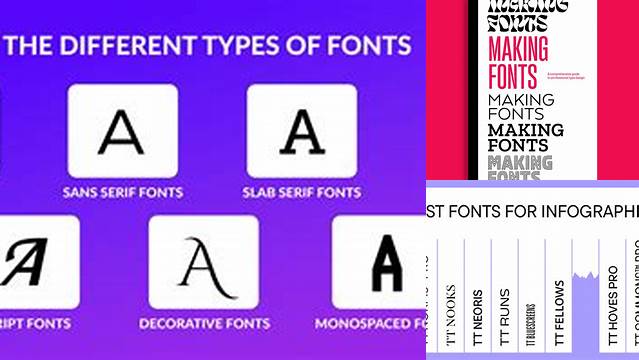
Text Font Types: A Comprehensive Guide
Hey guys! Ever wondered about the amazing world of text fonts? Well, buckle up because we're diving deep into it! From the fonts you see in your favorite books to the ones that pop up on your phone screen, each font has its own personality and purpose. Understanding different types of text fonts is super useful, whether you're designing a website, creating a presentation, or just trying to make your documents look a little more snazzy. So, let's get started and explore the wonderful universe of fonts together!
Serif fonts are like the classic and trustworthy members of the font family. You know them by those little decorative strokes, called serifs, that stick out from the ends of the letters. Think of fonts like Times New Roman, Garamond, and Georgia – they all have those cute little serifs. Serif fonts are often used in print because they're super easy to read in long blocks of text. That's why you'll find them in books, newspapers, and magazines. The serifs help guide your eye across the page, making reading a breeze. But serif fonts aren't just about readability; they also bring a sense of tradition and formality. Using a serif font can give your design a touch of elegance and sophistication, making it perfect for professional documents or classic-themed projects. So, next time you're choosing a font for a serious project, consider a serif font to add a touch of class and readability. Remember, these fonts are your go-to for creating a polished and professional impression.
Now, let's talk about sans-serif fonts. Unlike their serif cousins, sans-serif fonts don't have those little decorative strokes. "Sans" actually means "without" in French, so these fonts are all about clean and simple lines. Popular sans-serif fonts include Arial, Helvetica, and Open Sans. These fonts are often favored for digital displays because they look great on screens. Their clean design makes them easy to read, even at smaller sizes, which is super important for websites and apps. Sans-serif fonts are also known for their modern and minimalist vibe. They can make your design look fresh, contemporary, and approachable. If you're working on a website, a mobile app, or any project that needs a clean and modern look, sans-serif fonts are the way to go. They offer excellent readability on screens and give your design a sleek, up-to-date feel. Plus, they're incredibly versatile and can be used in a wide range of projects, from business presentations to marketing materials. So, when you want to keep things clean, simple, and modern, sans-serif fonts are your best friends.
Alright, guys, let's jazz things up with script fonts! These fonts are designed to look like handwriting, with flowing and connecting strokes that give them a personal and elegant touch. Script fonts can range from formal and sophisticated to playful and casual, so there's a script font for almost any mood you want to create. Think of fonts like Brush Script, Pacifico, and Lobster – they all have that handwritten flair. Because of their decorative nature, script fonts are often used for invitations, greeting cards, and logos where you want to add a touch of personality and charm. However, it's important to use script fonts sparingly. They can be harder to read in large blocks of text, so it's best to use them for headings, titles, or short phrases where you want to make a statement. When used correctly, script fonts can bring a unique and stylish feel to your design. They're perfect for adding a personal touch and making your project stand out. Just remember to keep readability in mind and use them in moderation. So, if you want to add a bit of elegance, charm, or personality to your project, give script fonts a try!
Let's get creative with decorative fonts! These fonts are all about making a statement and adding a unique visual element to your design. Decorative fonts come in all shapes and sizes, from bold and quirky to vintage and whimsical. They're designed to catch the eye and add personality to your project. Think of fonts that mimic retro styles, futuristic designs, or even hand-drawn illustrations. Because they're so distinctive, decorative fonts are best used sparingly. They're perfect for headlines, posters, and branding where you want to make a big impact. However, they can be difficult to read in large blocks of text, so it's important to use them strategically. When choosing a decorative font, think about the message you want to convey and how the font can help you achieve that. A vintage-style font might be perfect for a retro-themed event, while a bold and quirky font could be great for a children's book. The key is to have fun and experiment until you find the perfect font that reflects your vision. So, if you're looking to add a unique and eye-catching element to your design, decorative fonts are the way to go. Just remember to use them wisely and let your creativity shine!
Okay, let's talk about monospace fonts. These fonts are a little different because each letter and character takes up the same amount of horizontal space. This gives them a unique, consistent look that's often associated with typewriters and computer code. Popular monospace fonts include Courier New, Consolas, and Monaco. Monospace fonts are commonly used in coding environments because they make it easier to read and differentiate code. The consistent spacing helps you quickly identify errors and align code blocks. They're also used in technical documents, reports, and other applications where precision and clarity are important. While monospace fonts might not be the best choice for general text because they can look a bit clunky, they're perfect for specific purposes where their unique characteristics are an advantage. If you're writing code, creating technical documentation, or want to give your text a retro typewriter feel, monospace fonts are a great option. So, remember, when you need uniform spacing and clarity, monospace fonts have got your back!
Fixed-width fonts, also known as monospace fonts, are unique because each character occupies the same horizontal space. This contrasts with proportional fonts, where character widths vary. The uniformity of fixed-width fonts makes them ideal for specific applications where alignment and clarity are crucial. Common examples include Courier New, Monaco, and Consolas. Programmers often rely on fixed-width fonts in coding environments. The consistent spacing allows for easy identification of code structures and errors. This is particularly helpful when debugging or reviewing code. Beyond coding, these fonts are used in technical documentation, data tables, and situations requiring precise alignment. The structured appearance of fixed-width fonts enhances readability in these contexts, reducing ambiguity. Despite their utility, fixed-width fonts may not be the best choice for general-purpose writing. Their mechanical look can be less visually appealing than proportional fonts for body text. However, for tasks requiring alignment and clarity, fixed-width fonts remain indispensable. In summary, fixed-width fonts are essential when precise alignment and consistent spacing are paramount.
Let's dive into the modern world of variable fonts! These fonts are like the chameleons of the font family because they can change their appearance on the fly. Unlike traditional fonts, which have a fixed design for each style (like bold or italic), variable fonts store multiple variations within a single font file. This means you can adjust attributes like weight, width, and slant to create an infinite number of styles. Variable fonts are incredibly versatile and can be used to fine-tune the look of your text to perfectly match your design. They also offer performance benefits because you only need to load one font file instead of multiple files for different styles. This can significantly improve website loading times and overall performance. Variable fonts are supported by modern web browsers and design software, making them a great choice for web design, graphic design, and any project where you want maximum flexibility and control over your typography. So, if you're looking for a font that can adapt to your every need and boost your website's performance, variable fonts are the way to go. They're the future of typography, offering unprecedented flexibility and control over your text!
So, there you have it – a whirlwind tour of the amazing world of text fonts! From the classic serif fonts to the modern variable fonts, each type has its own unique characteristics and uses. Understanding these differences can help you choose the perfect font for your project, whether you're designing a website, creating a presentation, or just writing a document. Remember, the right font can make all the difference in how your message is perceived. So, take some time to explore different fonts and find the ones that speak to you. Happy designing, and may your fonts always be stylish and readable!